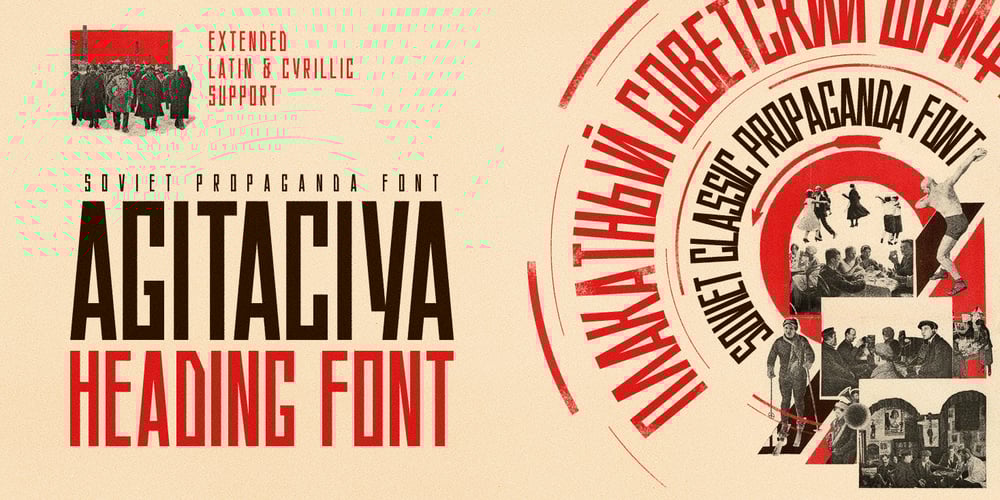
ST Agitaciya
ST Agitaciya font
ST Agitaciya Font Family was designed by Alexander Shimanov and published by ShimanovTypes. ST Agitaciya contains 1 styles and family package options. Introducing a retro narrow grotesque called “Agitaciya” (Agitation). Bring back to the Soviet Era Agitation inspired by Soviet posters, movie titles and book covers. The letterforms are straight and condensed and come in 2 styles: uppercase and small caps alternatives. It has Extended LATIN and Extended CYRILLIC letters. “Agitaciya”created for titles, poster design, web design, branding and packaging works, illustrations, badges and other typography works.*ST Agitaciya supports 15+ languages: English, German, Spanish, Belarusian, Bosnian, Bulgarian, Croatian, Dutch, Norsk, Dannish, Macedonian, Polish, Russian, Serbian, Slovenian, Swedish, Ukrainian, Kazakh, and probably others )